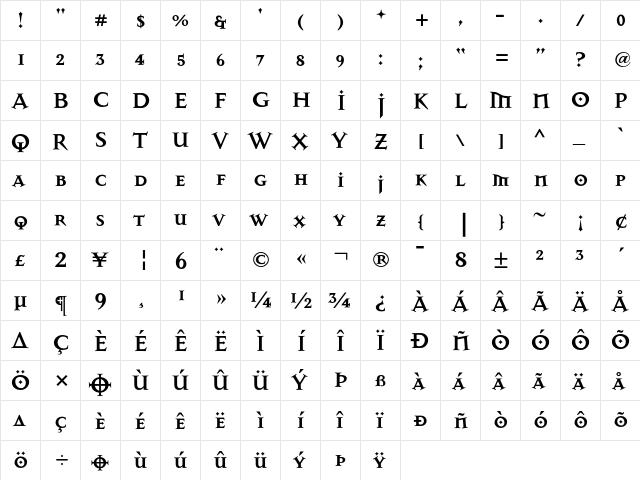
MasonAlternate Bold Font Preview
MasonAlternate Bold
Design Context for MasonAlternate Typeface
MasonAlternate is a composed and adaptable typeface that performs quietly and consistently across a wide range of design contexts. The heavy weight commands attention and anchors typographic hierarchies.